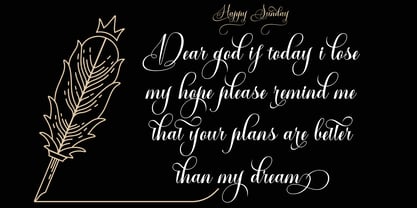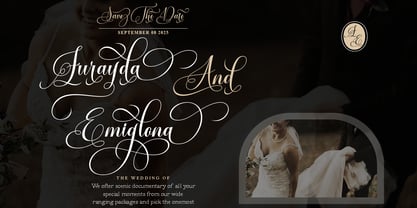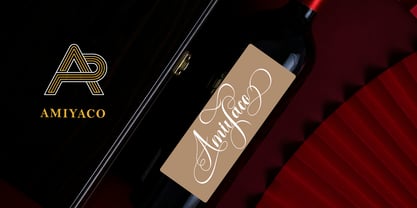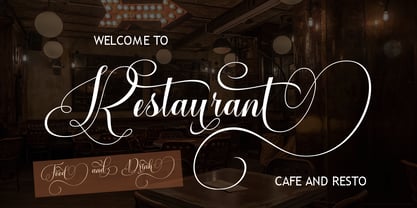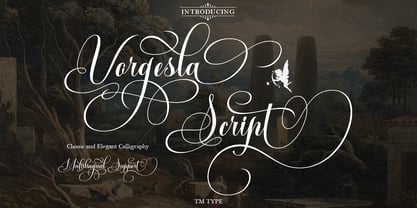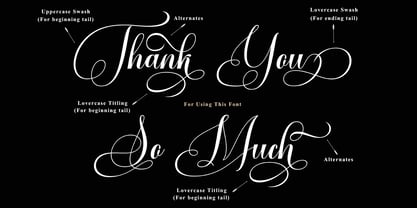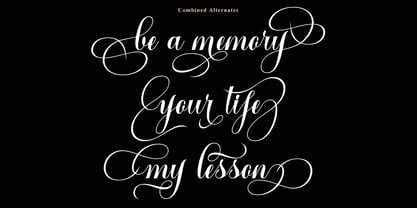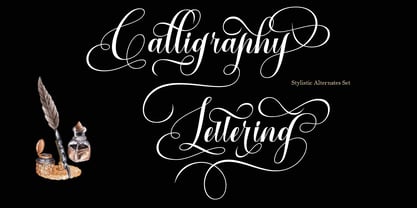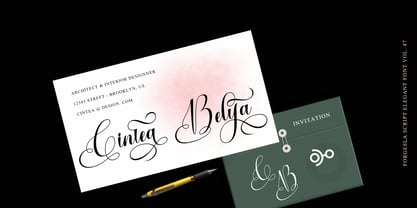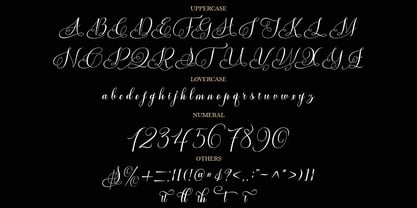
Vorgesla Script
by TM Type
The Vorgesla Script Font Family was designed by Teuku Bustami and published by TM Type. Vorgesla Script contains 1 styles. More about this family
Vorgesla Script Pro is a calligraphy script font that comes with exquisite change characters, a kind of classic decorative copper script with a modern twist, designed with great detail to bring out stylish elegance.
Vorgesla Script Pro appeals as a typeface that is smooth, clean, feminine, sensual, glamorous, simple and very easy to read, luxurious typeface. The classic style is very suitable to be applied in various formal forms such as invitations, labels, restaurant menus, logos, fashion, make up, stationery, novels, magazines, books, greeting / wedding cards, packaging, labels or any kind of advertising purposes.
Designers: Teuku Bustami
Current Foundry: TM Type